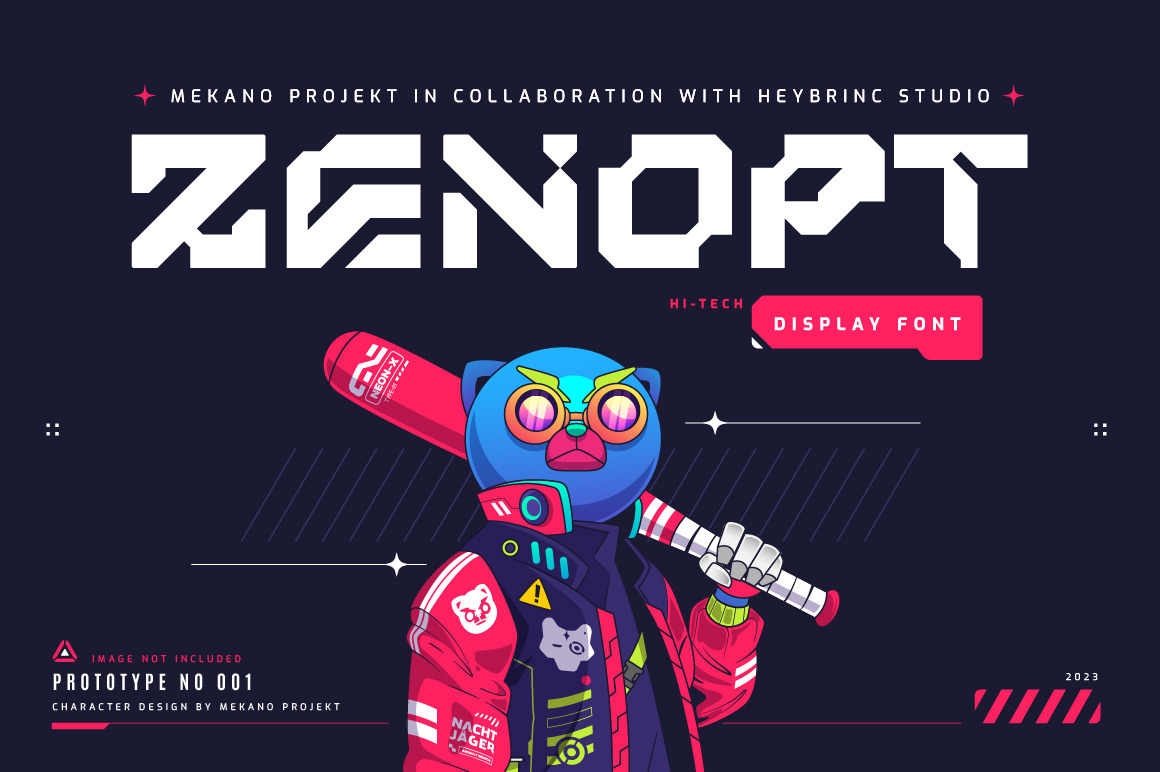
Zenopt Futuristic Font
Meet Zenopt, the font that's all about the future, sci-fi vibes, and high-tech coolness! If you're into sleek spaceships, sci-fi adventures, and gadgets from tomorrow, Zenopt is your font of choice.
Whether you're designing a logo, building a website, or making a poster for your sci-fi fan club, Zenopt is your wingman. It's the font of the future, and it's ready to make your projects pop.